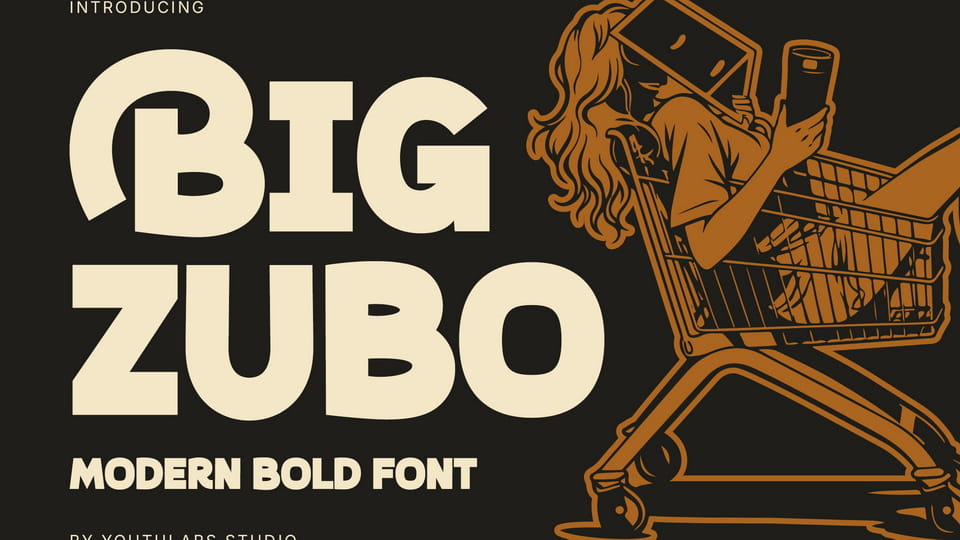
Download Big Zubo font, a modern bold display typeface built to make a powerful statement. With chunky letterforms, soft curves, and confident proportions, this font delivers a playful yet professional vibe.
Designer: Youthlabs Studio